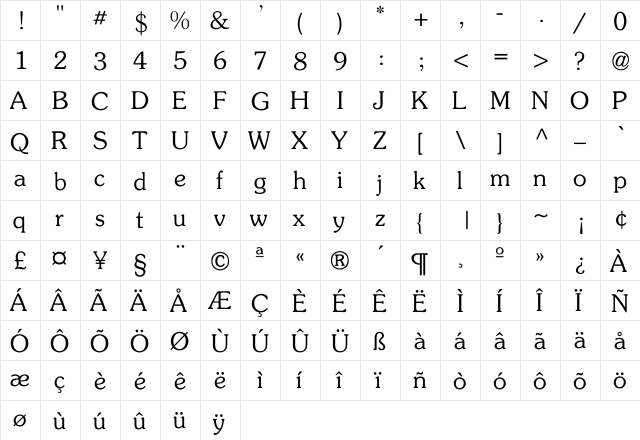
Flickner Regular
Design Context for Flickner Typeface
Flickner takes a measured approach to typography — its balanced proportions and neutral character make it a reliable workhorse for both digital and print work.